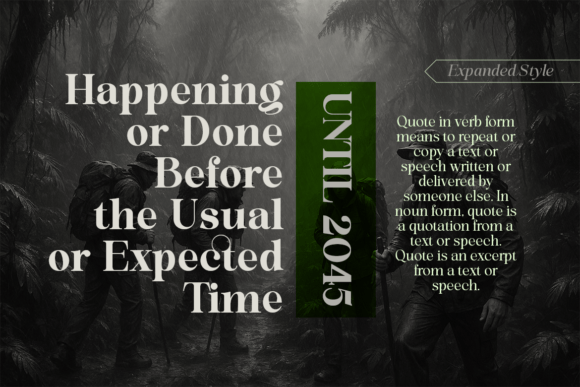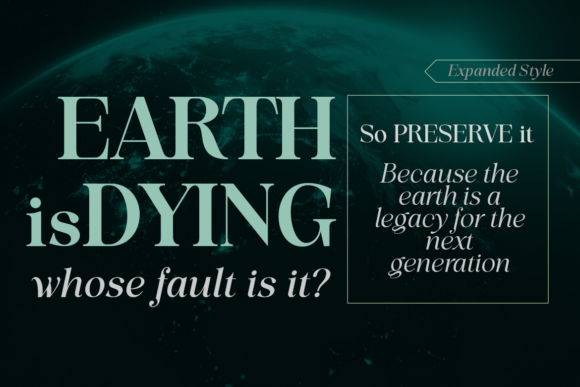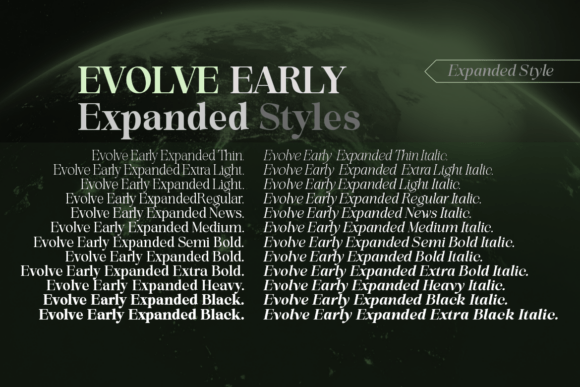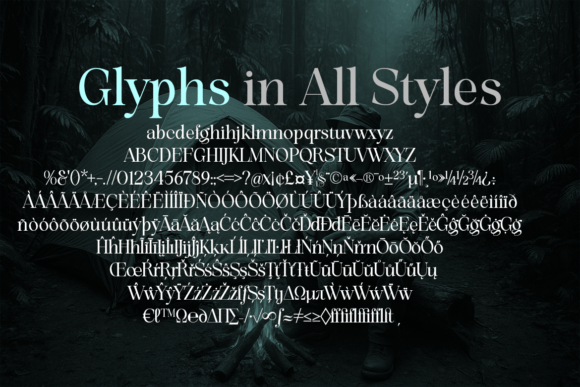
Evolve Early Expanded Font: The Perfect Balance of Familiarity and Uniqueness
In the world of typography, finding the perfect font that balances familiarity and uniqueness can be a daunting task. However, with Evolve Early Expanded, designers can rest assured that they have found a font that meets their needs. This bold and expressive serif family font has been making waves in the design industry, adorning the pages of top fashion magazines and publications in print media and web pages.
The Characteristics of Evolve Early Expanded
Evolve Early Expanded has a unique charm that sets it apart from other fonts. It flows with a vintage charm that supports contemporary designs, making it a versatile font that can be used for a variety of needs. One of the standout features of this font is its soft flexibility in the glyph character section. This characteristic gives Evolve Early Expanded a distinctive look that is both elegant and sophisticated.
As a serif family font, Evolve Early Expanded comes in a range of variations, with 12 upright fonts and 12 italics, making a total of 24 font variations. This extensive range allows designers to experiment with different applications, from logos and magazines to films and posters. The various thicknesses of the font also enable designers to create a range of effects, from bold and dramatic to subtle and refined.
Uses of Evolve Early Expanded
Evolve Early Expanded is a font that can be used for a wide range of design projects. Its elegance and sophistication make it perfect for:
• Branding: Create a lasting impression with Evolve Early Expanded’s bold and expressive font.
• Headlines: Draw attention with the font’s dramatic and eye-catching style.
• Captions: Add a touch of elegance to your captions with Evolve Early Expanded’s refined font.
• Paragraphs: Improve readability with the font’s clear and sophisticated style.
• Posters: Create a stunning poster with Evolve Early Expanded’s bold and expressive font.
Why Choose Evolve Early Expanded?
So, why should designers choose Evolve Early Expanded over other fonts? Here are a few reasons:
• Perfect balance: Evolve Early Expanded has the perfect balance between familiarity and uniqueness, making it a versatile font that can be used for a wide range of design projects.
• Elegance and sophistication: The font’s elegant and sophisticated style makes it perfect for high-end designs, such as fashion magazines and luxury brands.
• Readability: Evolve Early Expanded is designed to be readable, making it perfect for body text and paragraphs.
• Variety: With 24 font variations, designers have a range of options to choose from, allowing them to experiment with different effects and styles.
Tips for Using Evolve Early Expanded
Here are a few tips for using Evolve Early Expanded:
• Experiment with different thicknesses: Try out different thicknesses to create a range of effects, from bold and dramatic to subtle and refined.
• Pair with other fonts: Pair Evolve Early Expanded with other fonts to create a unique and interesting contrast.
• Use for headlines and body text: Use Evolve Early Expanded for both headlines and body text to create a cohesive and sophisticated look.
In conclusion, Evolve Early Expanded is a versatile and elegant font that is perfect for designers and crafters looking for a bold and expressive serif family font. With its perfect balance of familiarity and uniqueness, soft flexibility in the glyph character section, and extensive range of font variations, Evolve Early Expanded is a font that can be used for a wide range of design projects. Whether you’re creating a fashion magazine, a luxury brand, or a film, Evolve Early Expanded is a font that is sure to make a lasting impression.